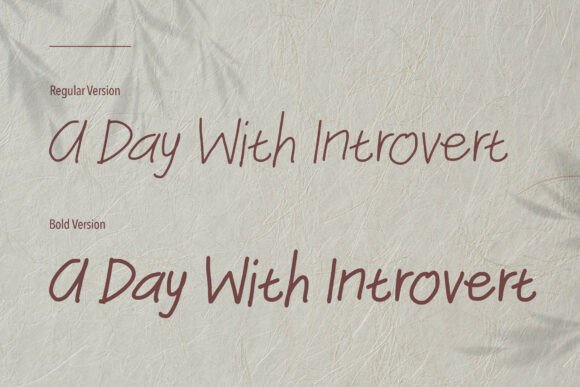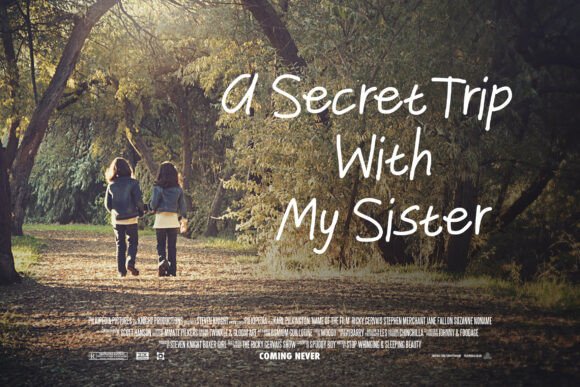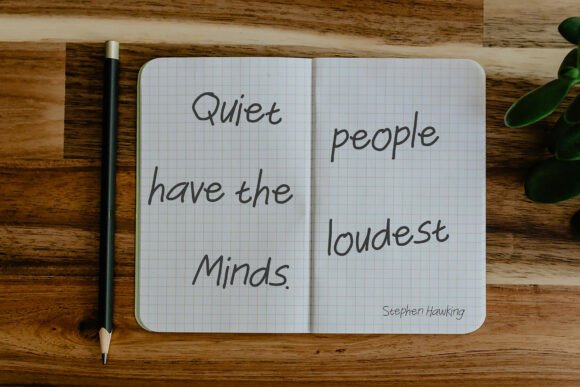
Discover the Unique Charm of “A Day With Introvert” Font
Are you tired of using the same old fonts in your design projects? Look no further! “A Day With Introvert” is a one-of-a-kind, 100% handwritten font that is sure to add a personal touch to your creations. Designed by introverts using a Wacom tablet, this font boasts an authentic, natural handwriting appearance that is both unique and captivating.
The Story Behind the Font
The “A Day With Introvert” font is more than just a design element – it’s a statement. Created by introverts, for introverts, and inspired by the introvert style, this font embodies the quirks and charm of handwritten text. The designers intentionally blurred the line between uppercase and lowercase letters, creating a distinctive and consistent look that is both casual and approachable.
A Font that Breaks the Mold
One of the standout features of “A Day With Introvert” is its deliberate design choice to make uppercase letters resemble their lowercase counterparts. Take, for example, the “A” and “E” letters, which bear a striking resemblance to their smaller versions. This stylistic decision gives the font a relaxed, informal feel that is perfect for designers and crafters looking to add a personal touch to their work.
The “A Day With Introvert” font package includes two versions: regular and bold. This allows designers to experiment with different styles and tones while maintaining the font’s core aesthetic. Whether you’re working on a branding project, creating social media graphics, or crafting a handmade card, this font is sure to adapt to your needs.
“A Day With Introvert” is the perfect font for designers and crafters looking to add a unique and personal touch to their work. Whether you’re creating:
• Branding materials, such as logos and business cards
• Handmade cards and invitations
• Web graphics and blog posts
This font is sure to bring a touch of warmth and personality to your designs.
Why Choose “A Day With Introvert”?
So why choose “A Day With Introvert” over other fonts? Here are just a few reasons:
• Unique and authentic: This font is 100% handwritten, giving it a genuine and natural appearance.
• Consistent and casual: The font’s design ensures a consistent, casual feel that’s perfect for a wide range of design projects.
• Versatile: With both regular and bold versions, you can experiment with different styles and tones.
In conclusion, “A Day With Introvert” is a one-of-a-kind font that is sure to add a personal touch to your design projects. With its unique and authentic handwriting appearance, consistent and casual feel, and versatility, this font is perfect for designers and crafters looking to stand out from the crowd. So why wait? Download “A Day With Introvert” today and discover the power of handwritten typography!